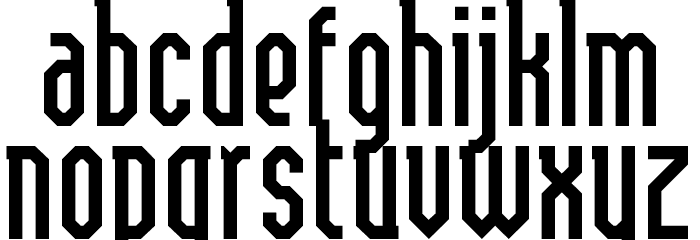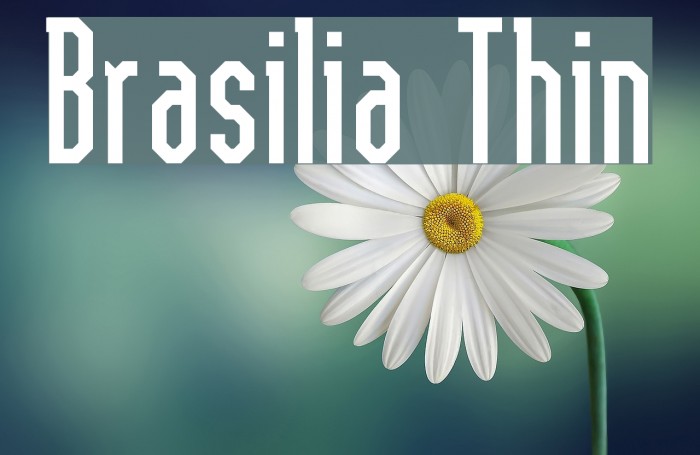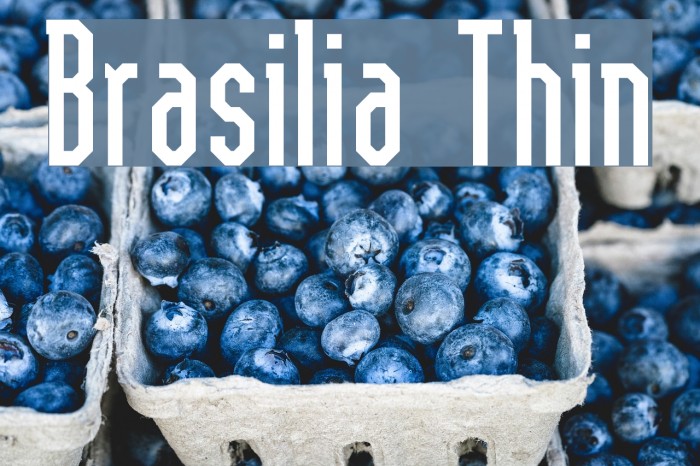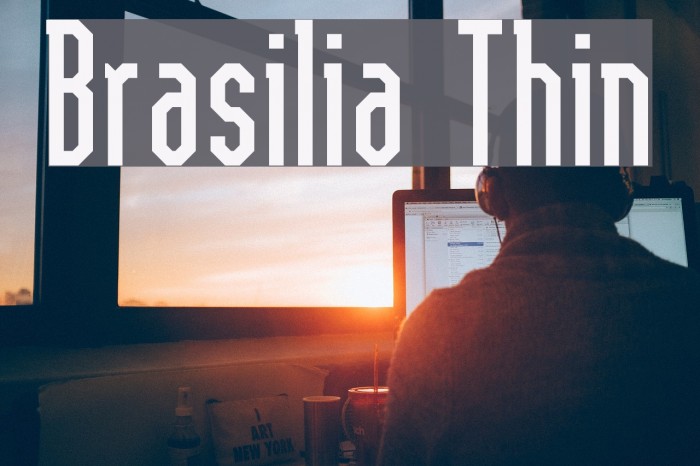
Brasilia Thin Font
This font features a modern, geometric design with a distinctively tall and narrow structure. The characters are constructed with straight lines and sharp angles, giving it a futuristic and architectural feel. The uppercase letters are particularly elongated, while the lowercase letters maintain a consistent height that complements the overall design. The numerals and special characters follow the same stylistic approach, ensuring uniformity across the typeface. The font's clean lines and minimalistic style make it suitable for contemporary design projects.
A modern, geometric font with tall, narrow characters and sharp angles.
- Proposed Projects: Ideal for branding, posters, and editorial design where a modern and futuristic look is desired.